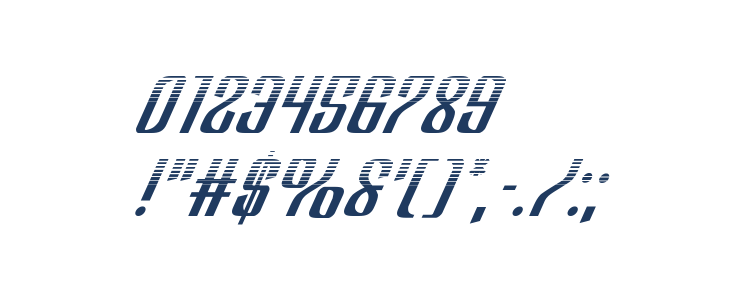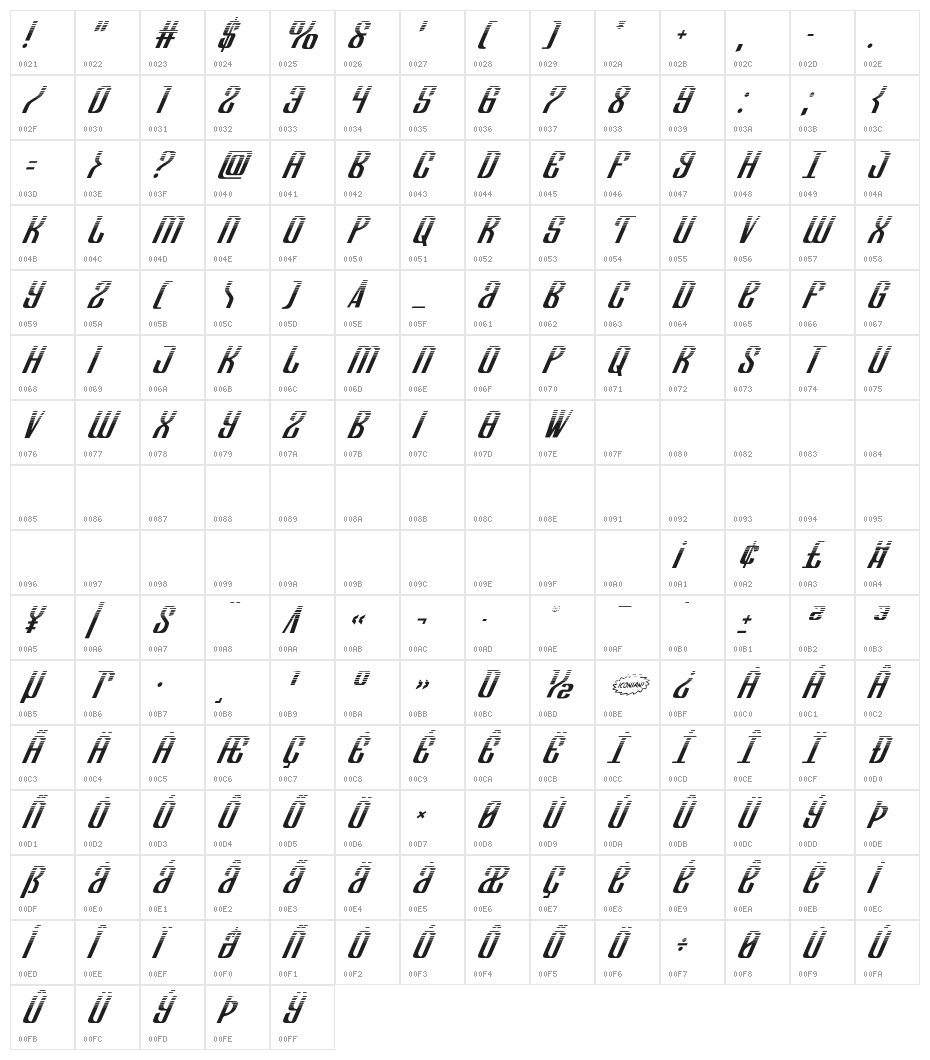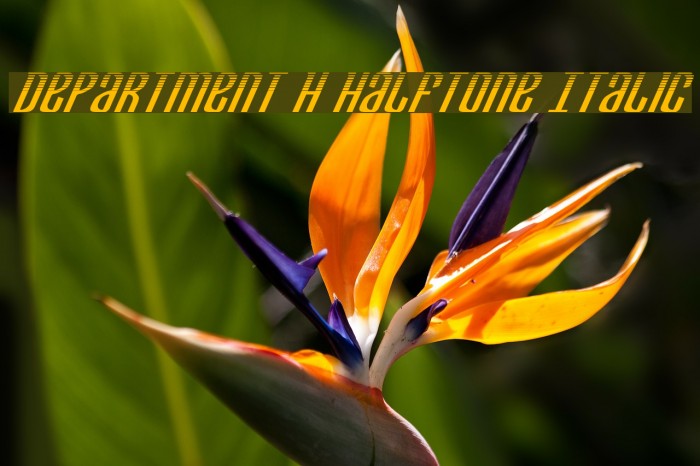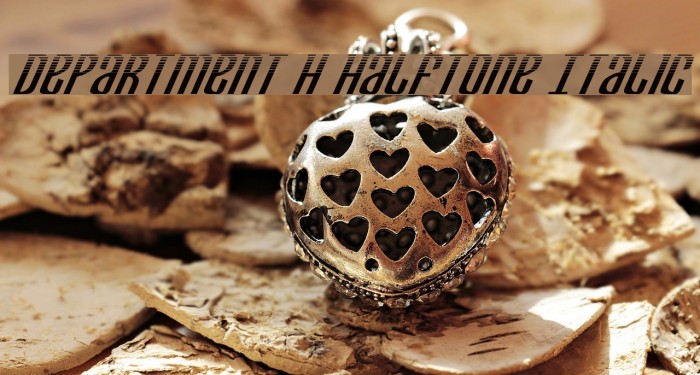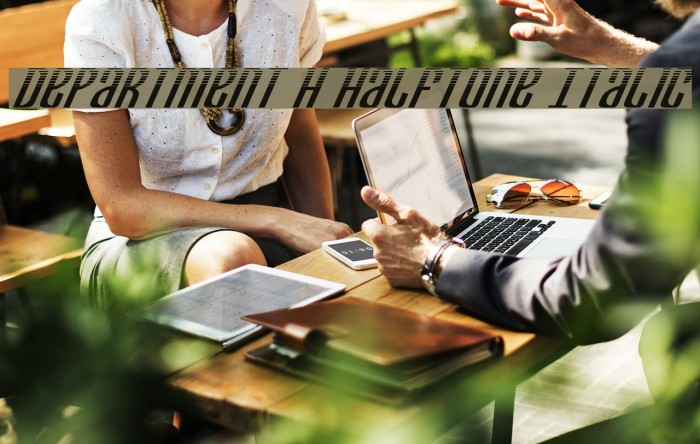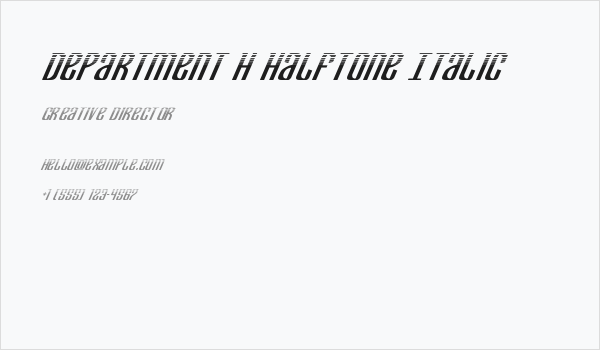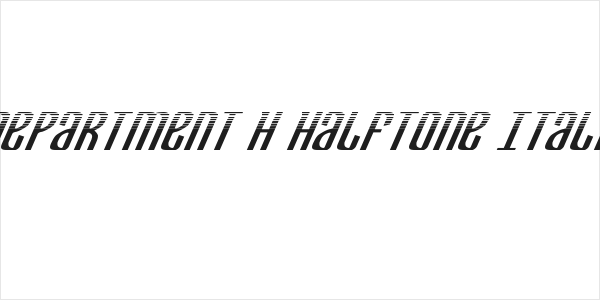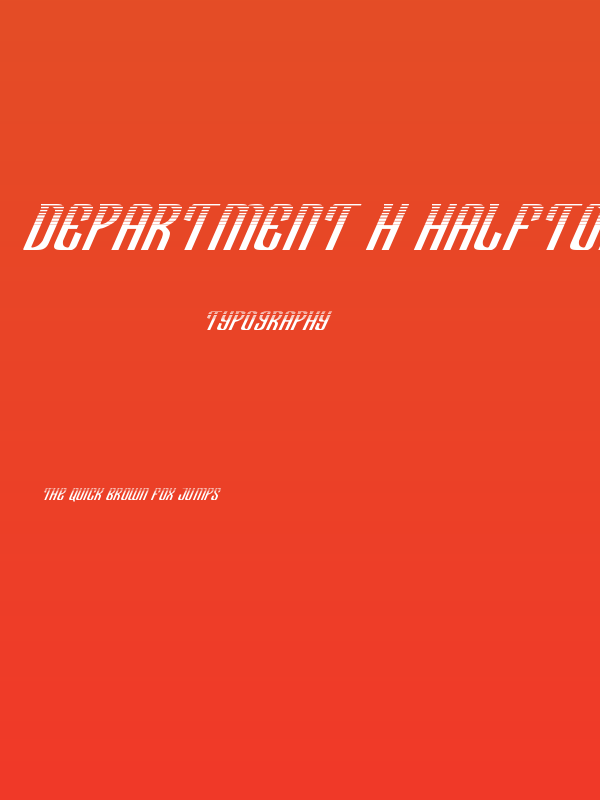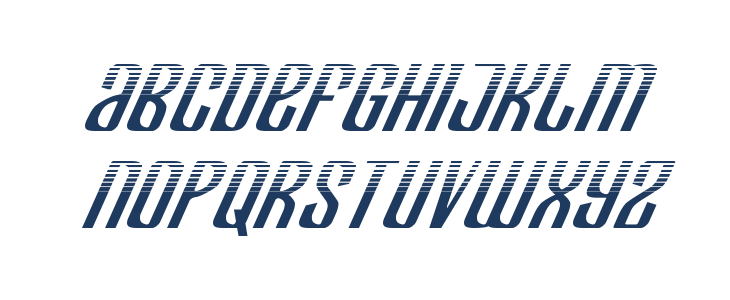
Department H Halftone Italic Font
Department H Halftone Italic Description
This font features a dynamic and bold italic style with a halftone effect that gives it a unique, modern appearance. The characters are slanted, adding a sense of motion and urgency, while the halftone pattern creates a textured look that is both eye-catching and distinctive. The uppercase and lowercase letters maintain a consistent style, with sharp angles and clean lines. The numerals and special characters are designed to match the overall aesthetic, ensuring a cohesive look across all text. This font is ideal for projects that require a contemporary and edgy feel.
| Proposed Projects | Ideal for branding, posters, and digital media that require a modern and edgy look. |